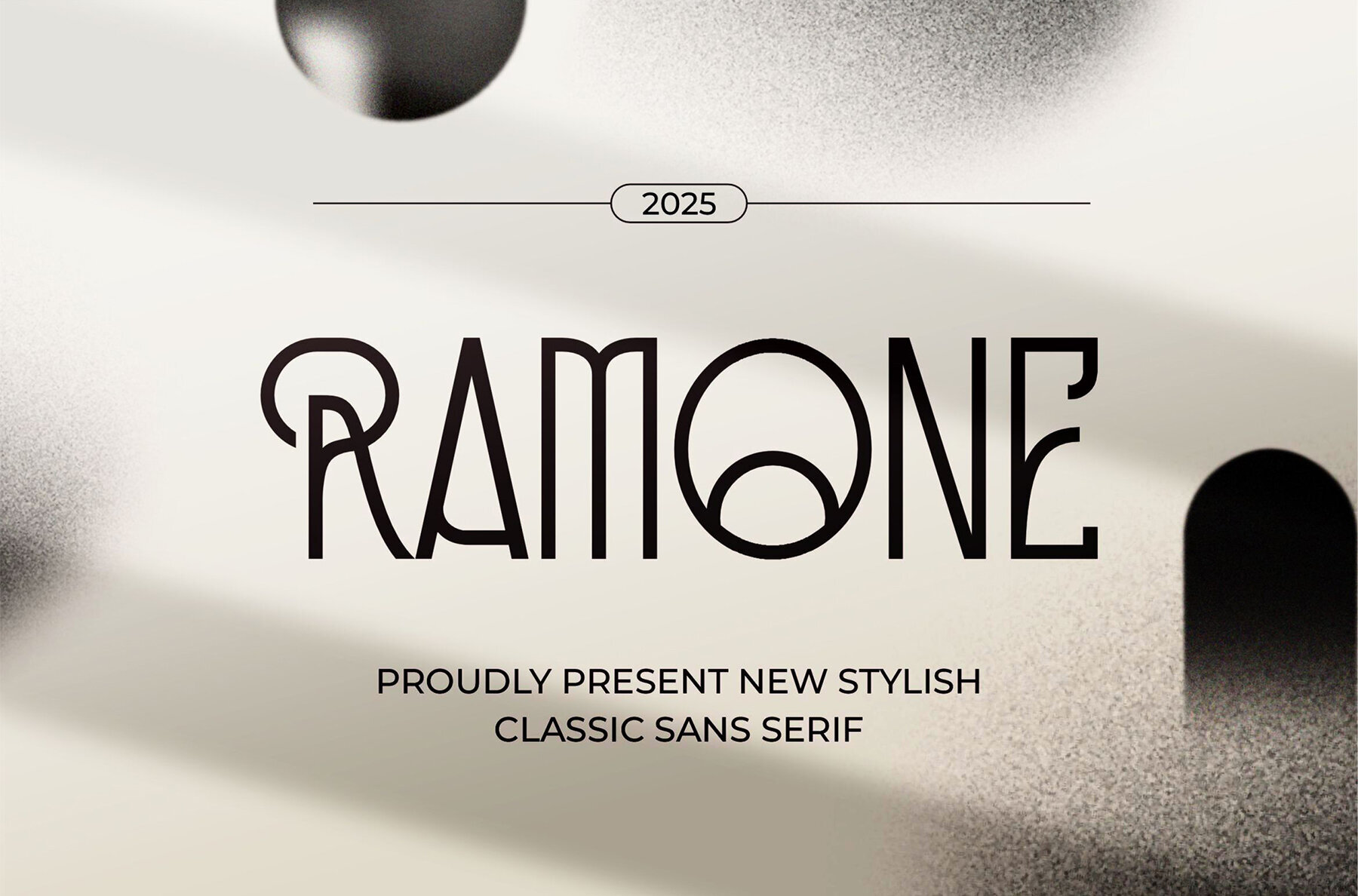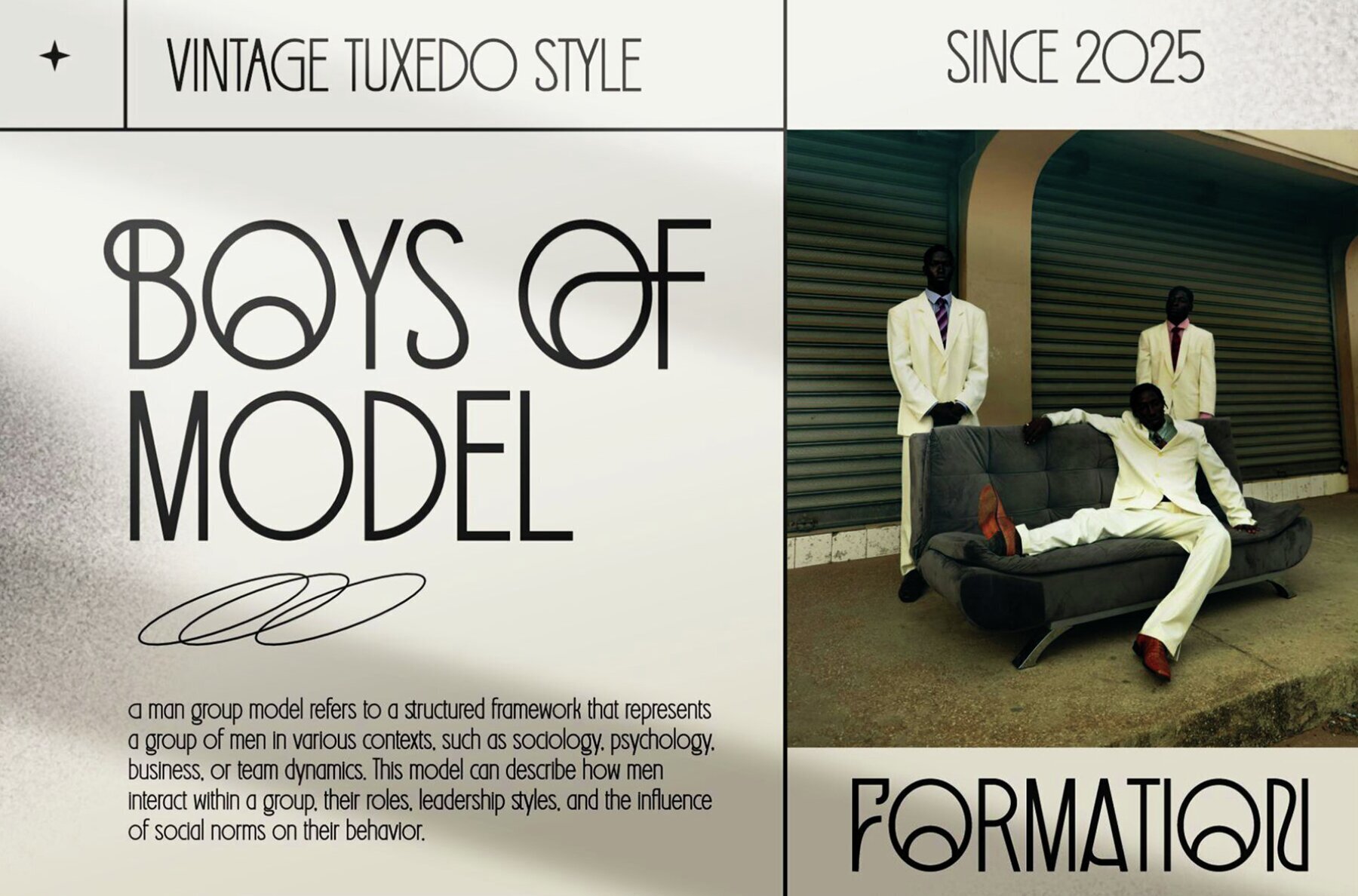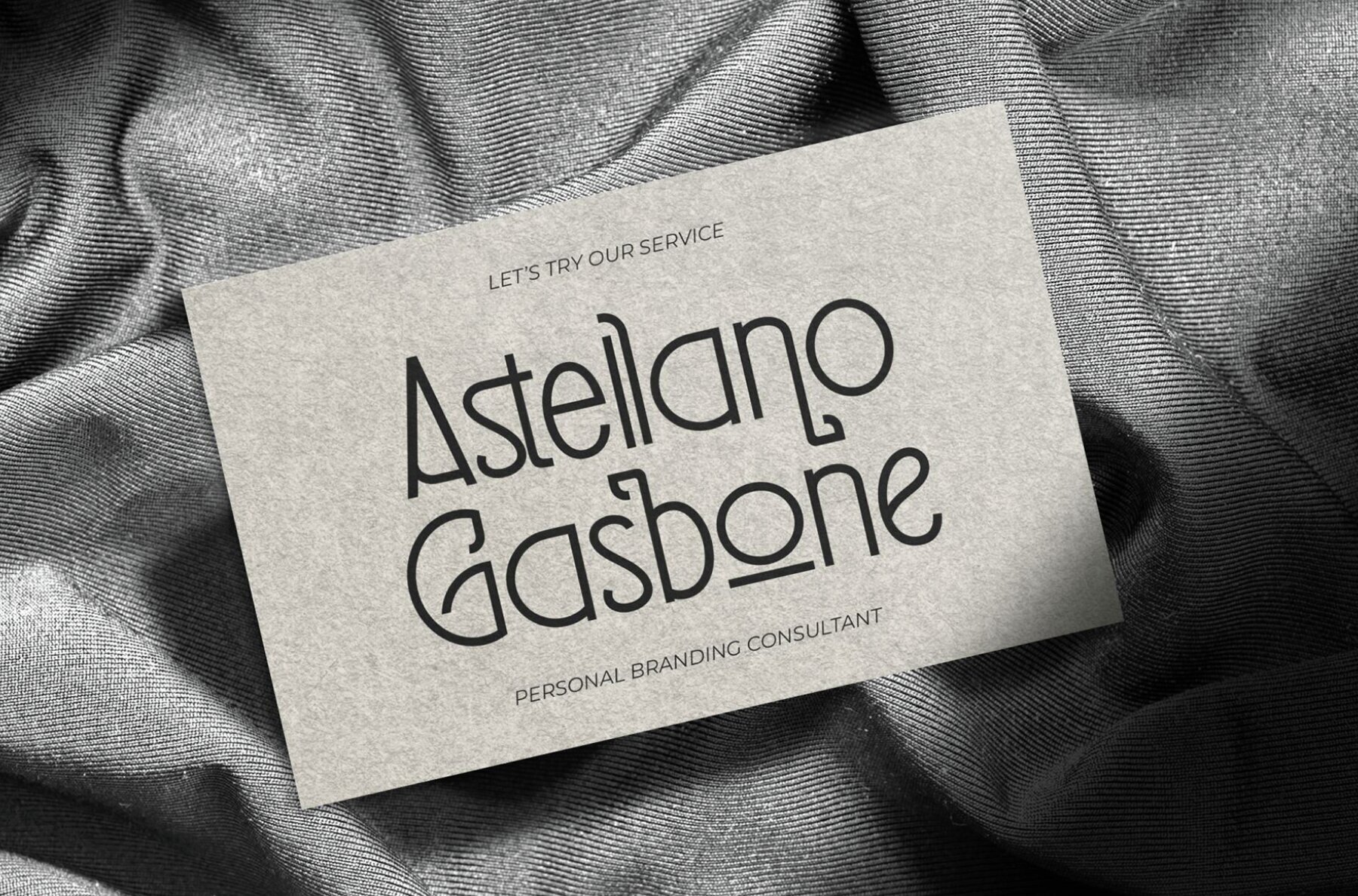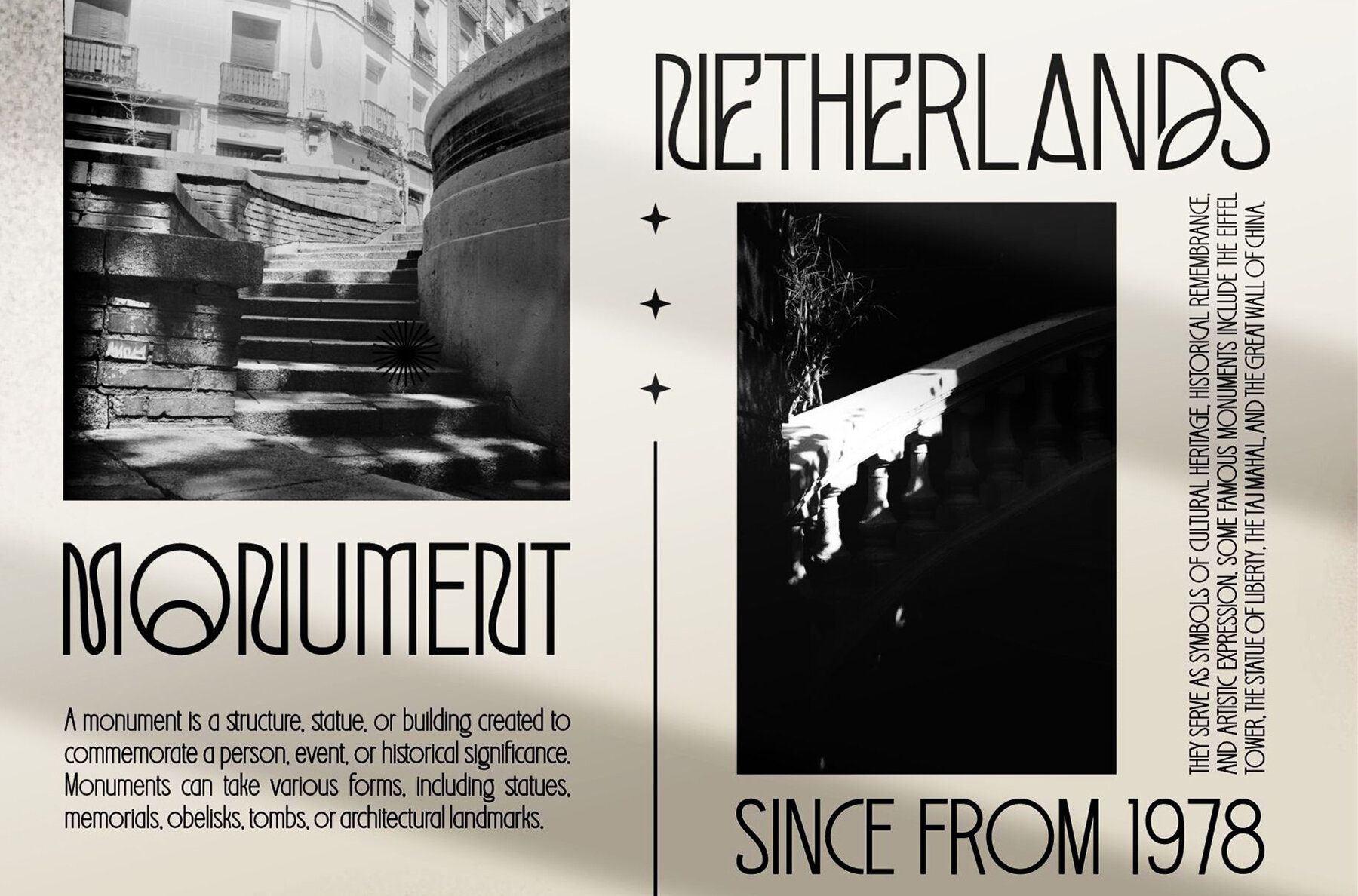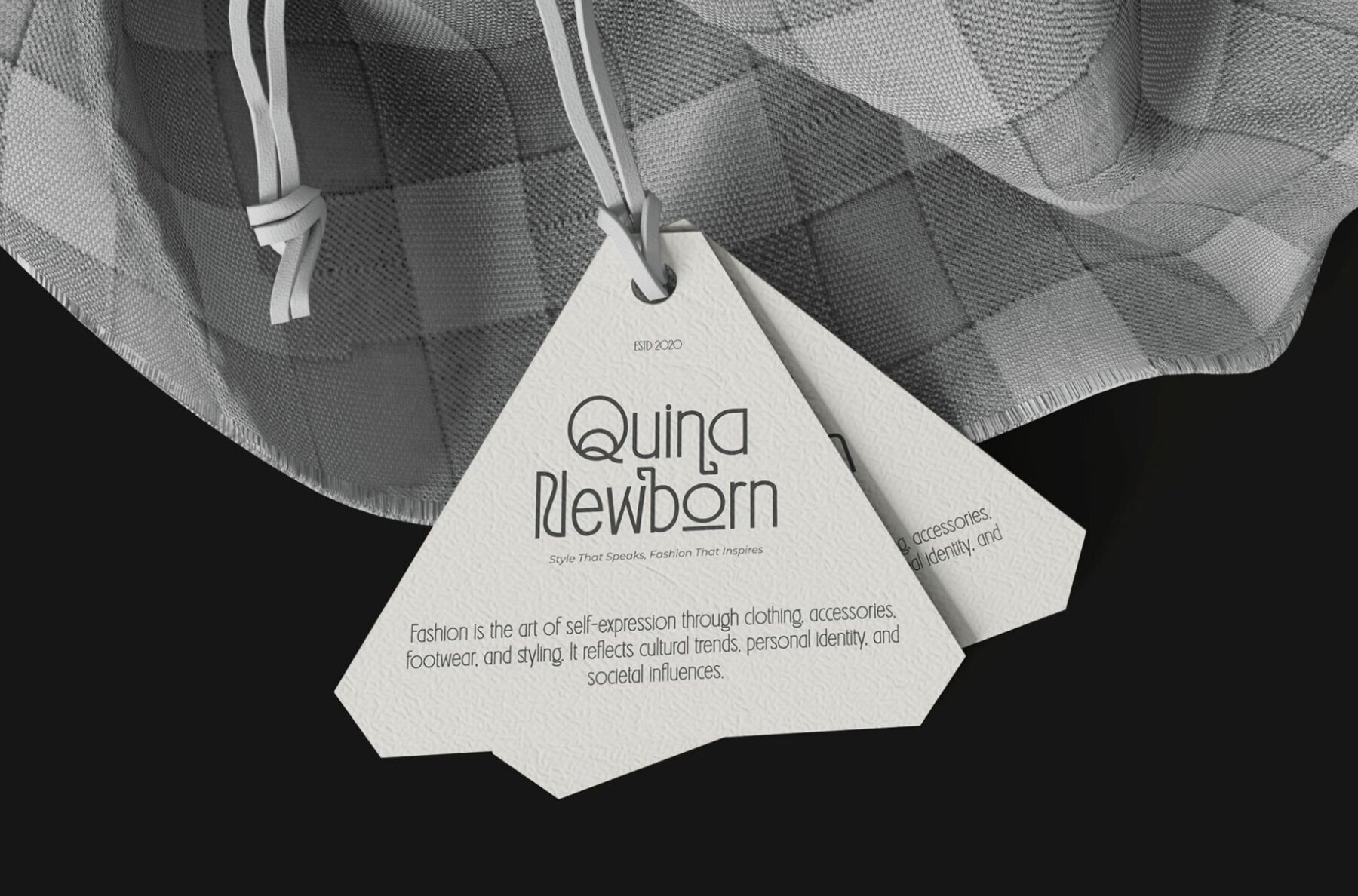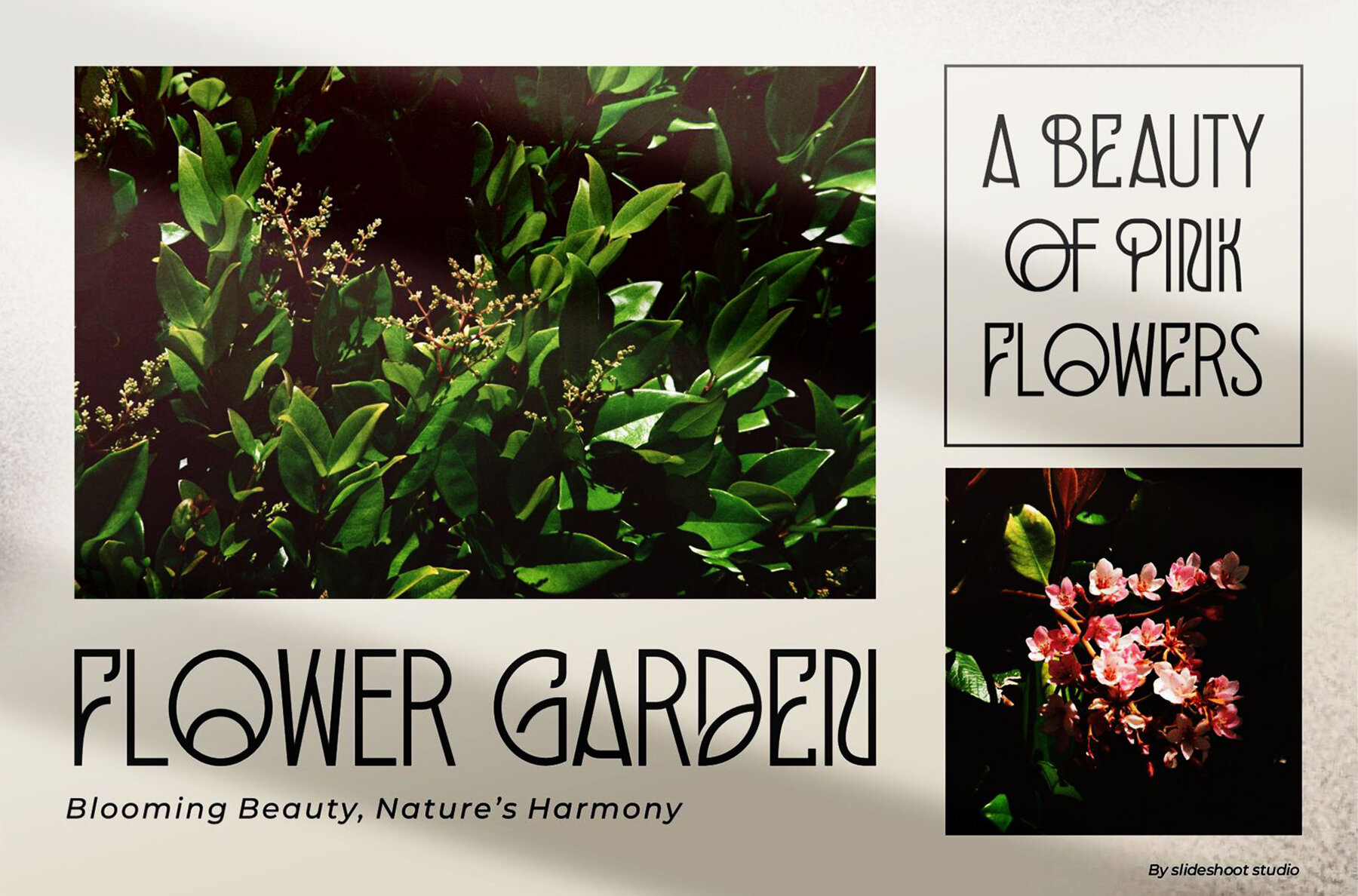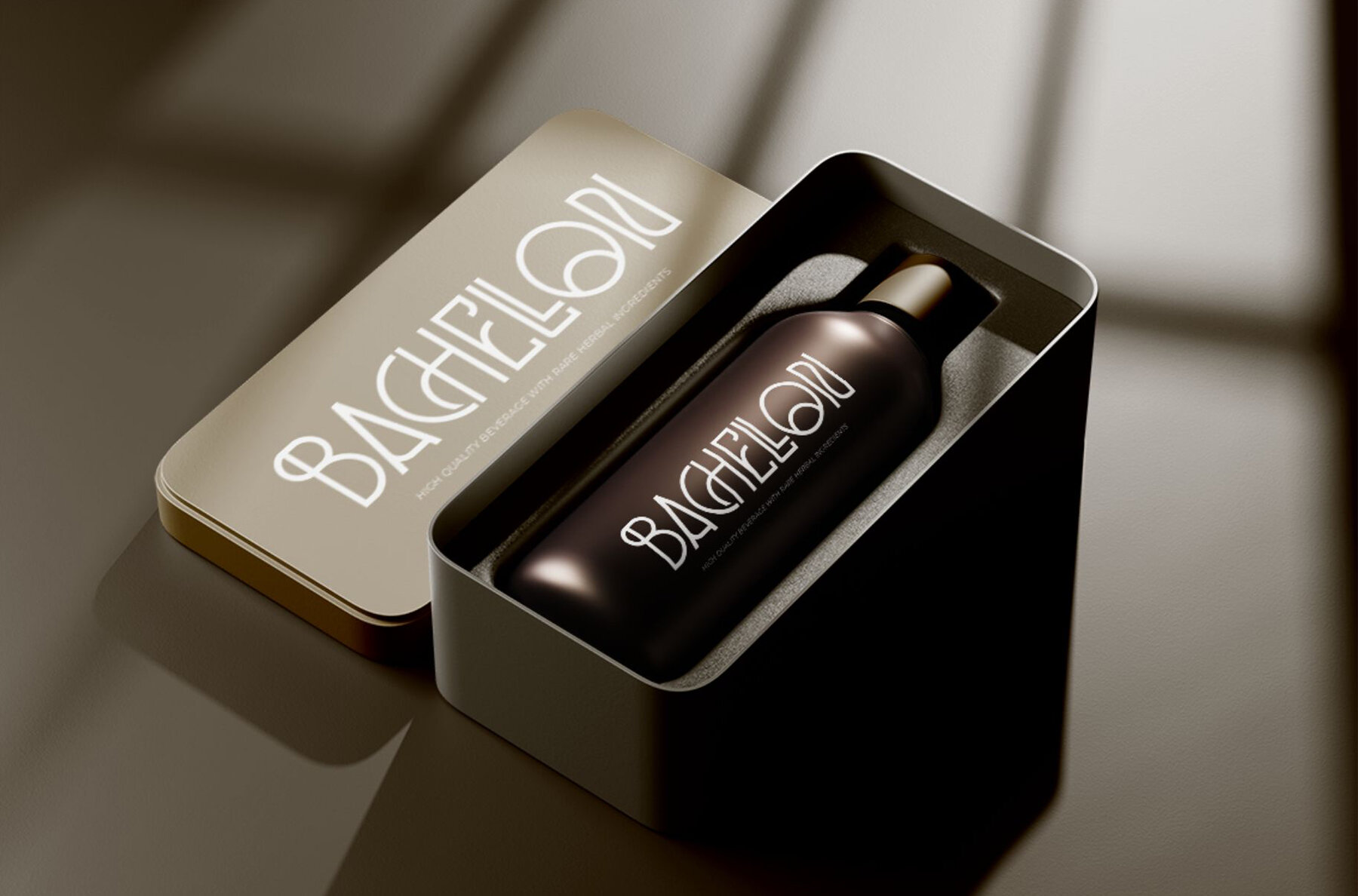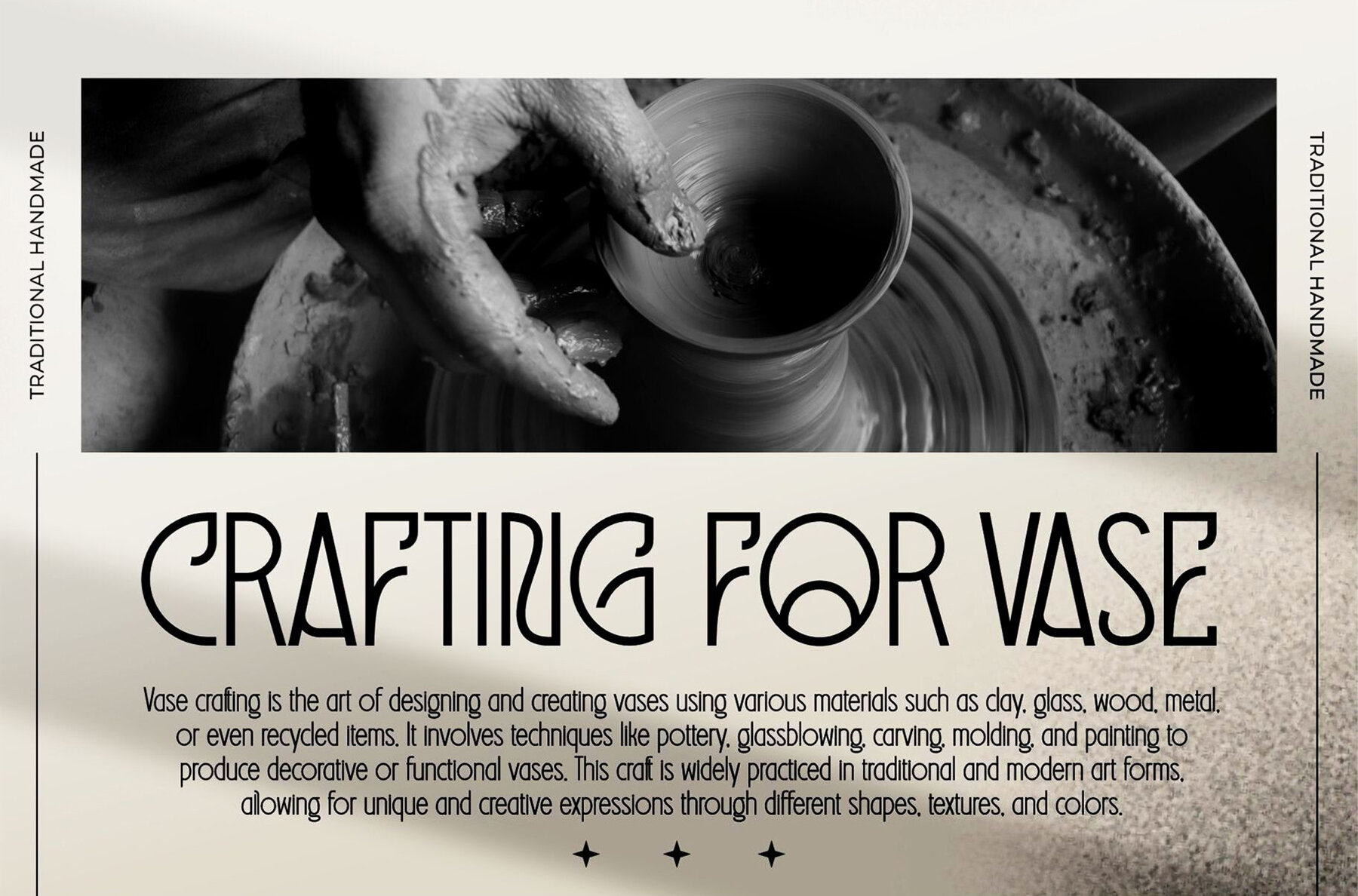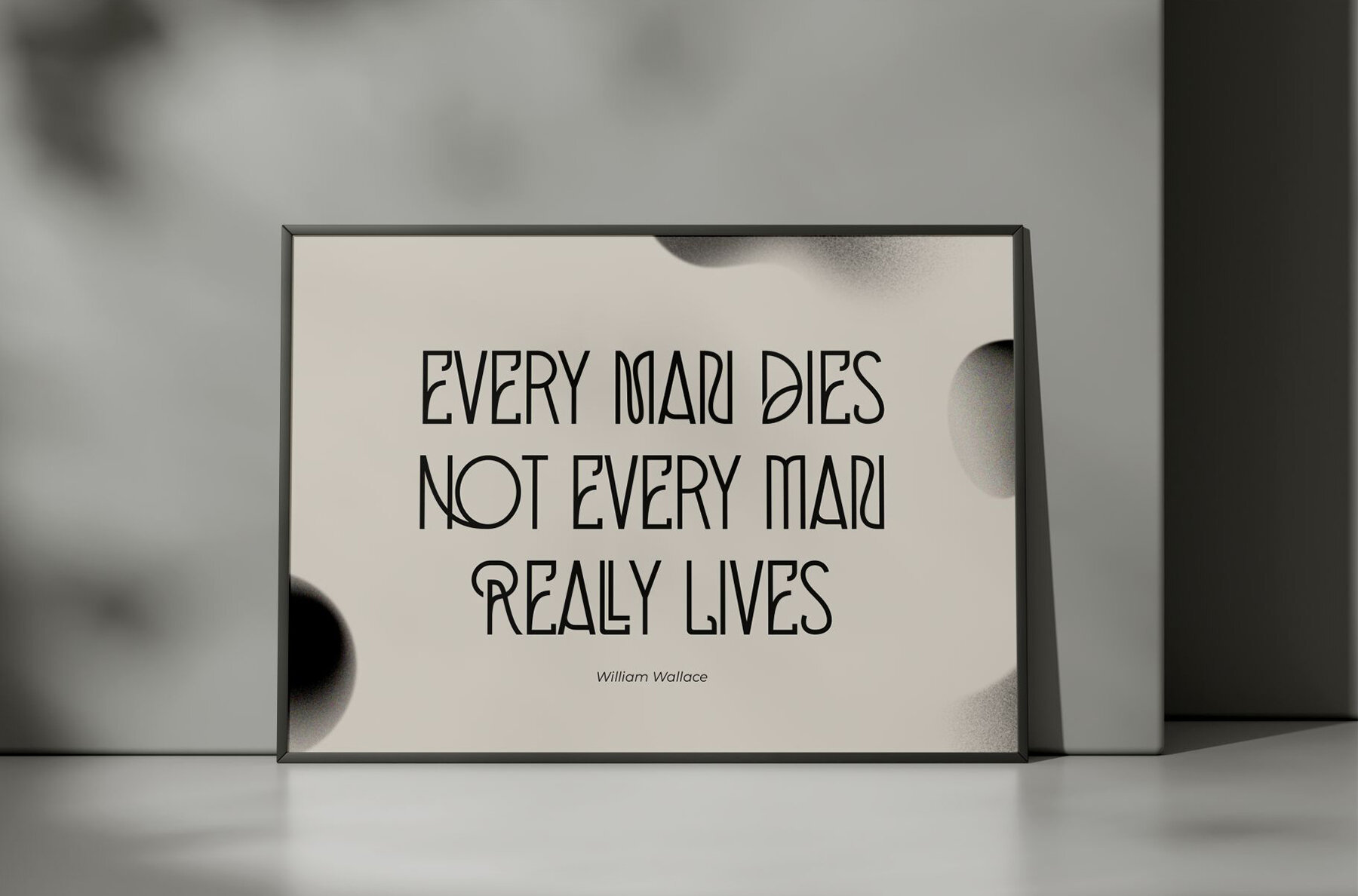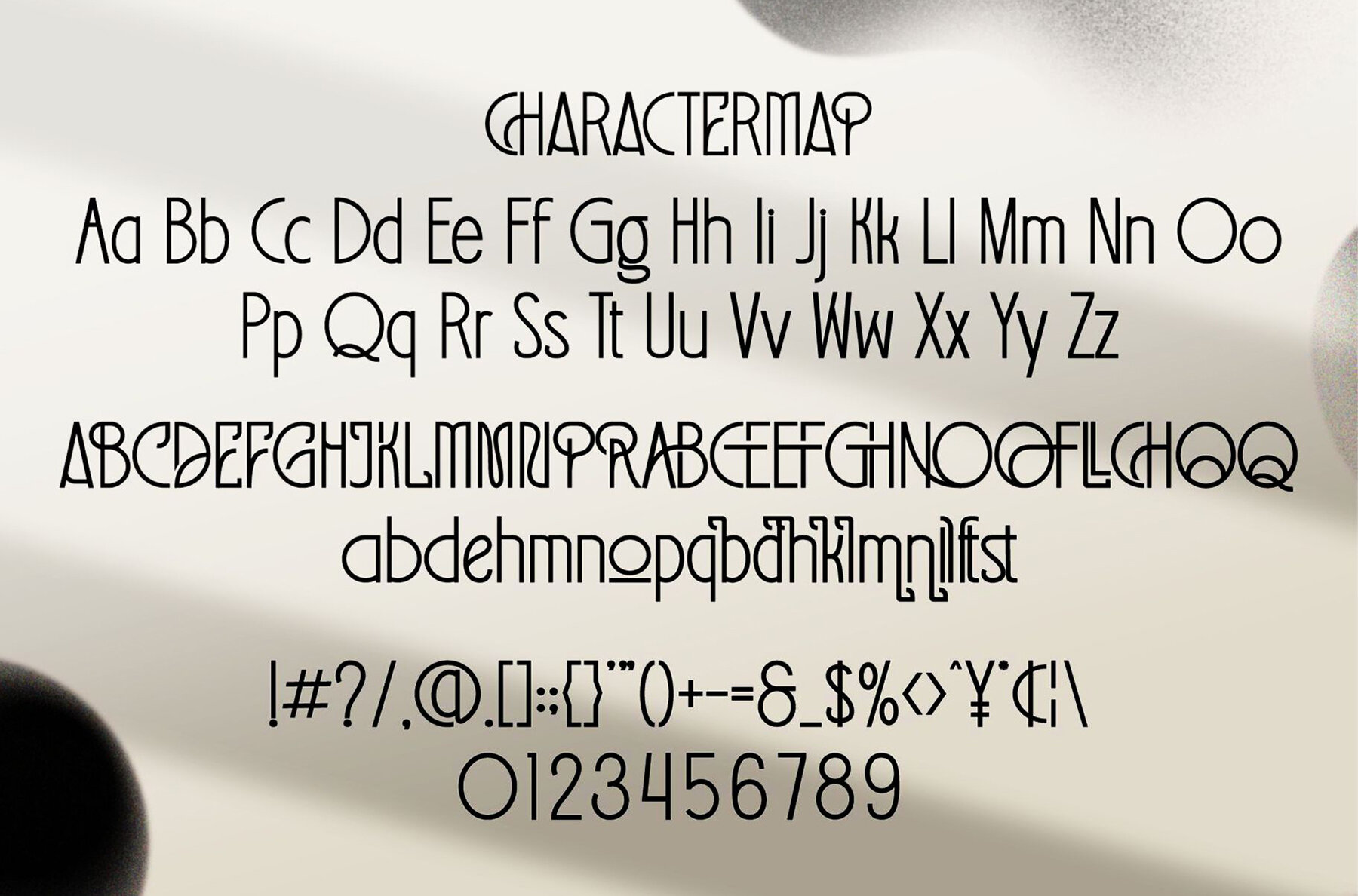
Ramone Font
Ramone
Discover Ramone, a sans serif font that exudes elegance and a classic touch. It's an ideal choice for a variety of design projects, including branding, logo design, and lettering. Whether you're working on a clothing line, posters, magazines, or packaging, Ramone adds a sophisticated flair. Its versatility also shines in crafting logotypes, shopping bags, t-shirts, book covers, and event photography, making it a timeless asset to any designer's toolkit.Ramone: Timeless Elegance in Sans Serif